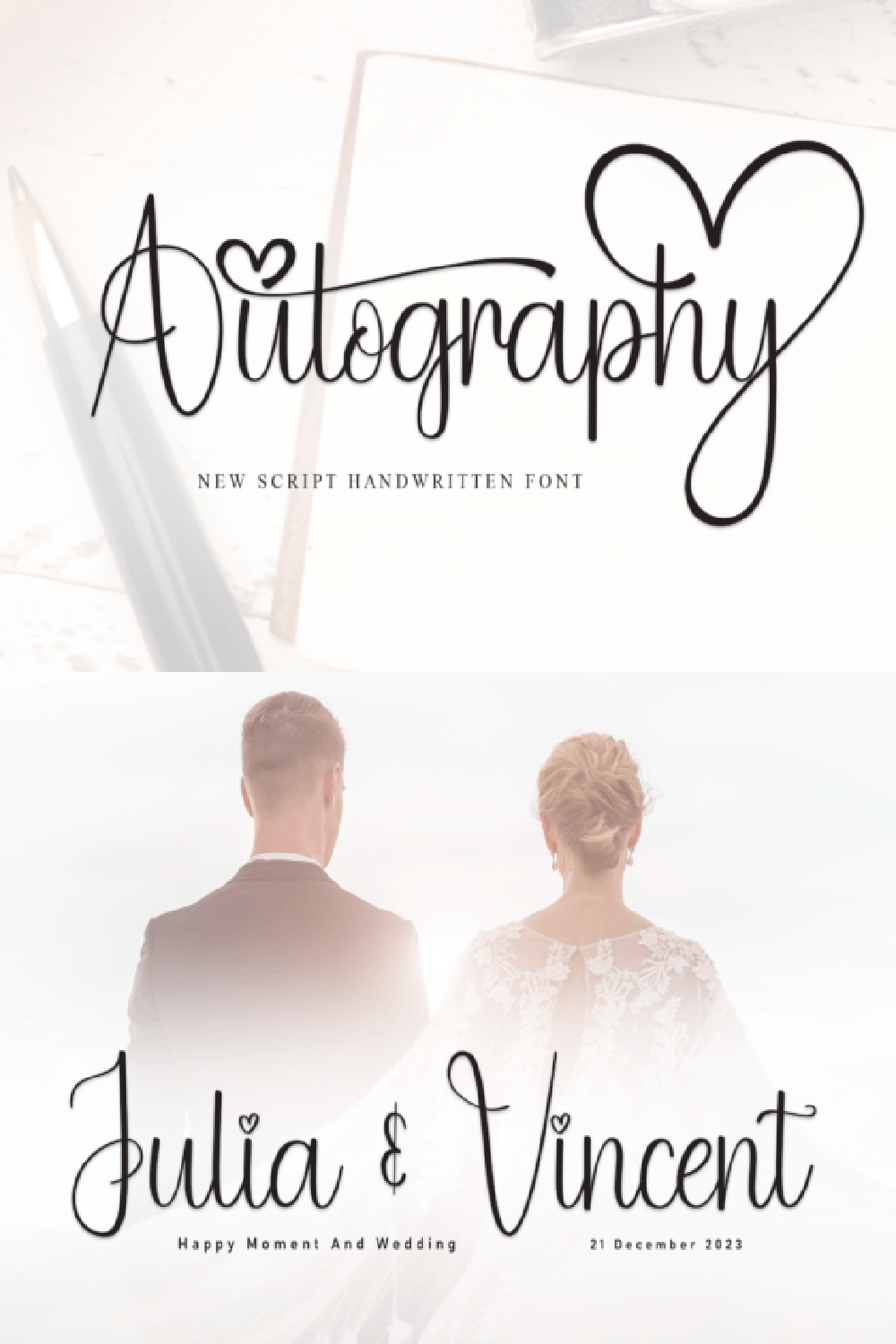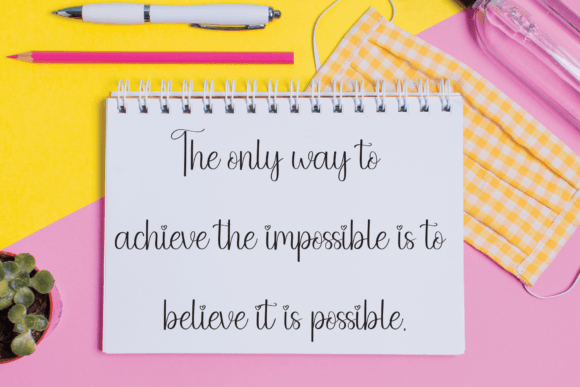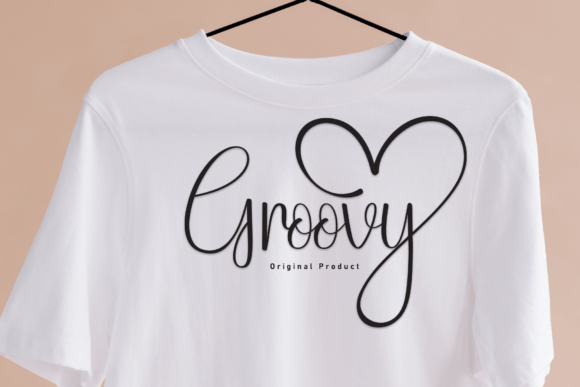
About the Autography Font
From logos to headlines, the Autography Font is the perfect choice for making a lasting impression. Autography is a delicate, elegant, and flowing handwritten font. It has beautiful and well-balanced characters and as a result, it matches a wide pool of designs.
Autography Font Usage Examples